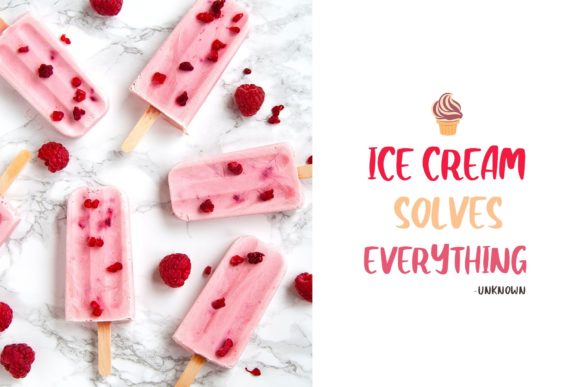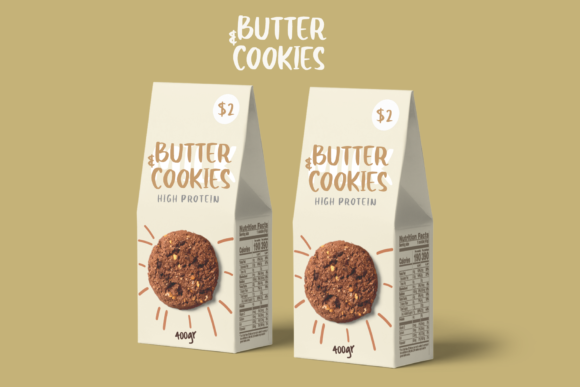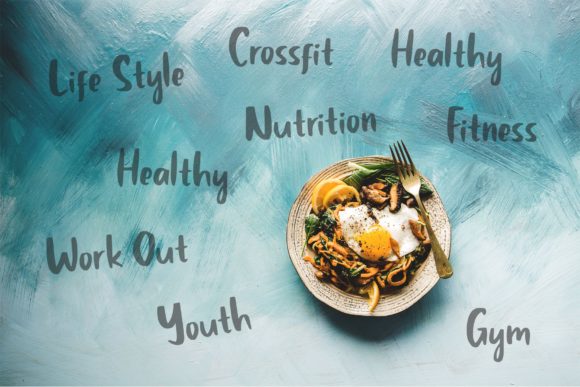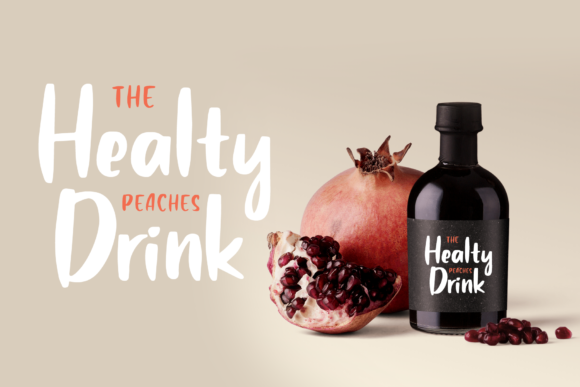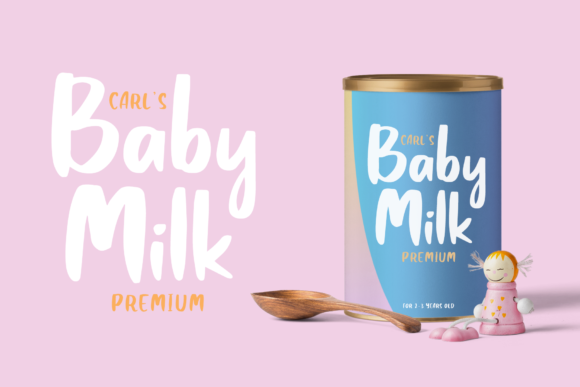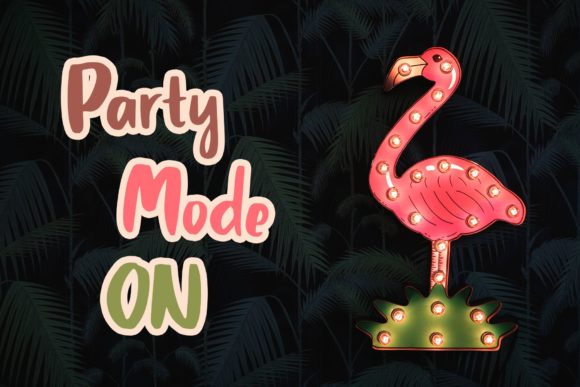
Introducing Claudey Font: Elevate Your Designs with a Touch of Humanity
In the world of typography, fonts play a crucial role in conveying the tone and personality of a design. For crafters and designers looking to add a personal touch to their work, the Claudey font is an excellent choice. This striking handwritten font has the power to transform ordinary type into an exciting and beautiful piece of art. With its irregular, hand-lettered look and abundance of loving details, Claudey is the perfect addition to any design project.
The Charm of Handwritten Typography
The Claudey font boasts a unique, handwritten aesthetic that adds a real human touch to any design. In an era where digital communication dominates, handwritten typography offers a refreshing respite from the uniformity of digital fonts. The irregularities and quirks inherent in handwritten fonts like Claudey create a sense of authenticity and personality, making your designs stand out in a crowded digital landscape.
Key Features of Claudey Font
- Handwritten Aesthetic: Claudey’s hand-lettered look adds a personal and emotive touch to your designs.
- Irregularities and Details: The font is filled with loving details that give it a unique character.
- Versatility: Combine all font styles to create a cohesive and visually appealing design.
- Customization Options: Add ornamental swashes or banners to give your text an extra layer of elegance.
Creative Applications of Claudey Font
The versatility of Claudey font makes it suitable for a wide range of design applications. Here are a few ideas to get you started:
- Branding and Logos: Use Claudey to create a unique and memorable brand identity.
- Invitations and Stationery: Add a touch of elegance to your wedding invitations, greeting cards, and other stationery.
- Packaging Design: Make your product packaging stand out with Claudey’s distinctive handwritten style.
- Digital and Print Media: Use Claudey in your digital and print media, such as brochures, flyers, and social media graphics.
Tips for Using Claudey Font Effectively
To get the most out of Claudey font, consider the following tips:
- Mix and Match: Experiment with combining different font styles to create a cohesive look.
- Pay Attention to Spacing: Make sure to adjust the spacing between letters and words to maintain readability.
- Use Swashes and Banners: Add ornamental swashes and banners to give your text a decorative touch.
- Keep it Simple: Don’t overdo it – sometimes, less is more. Let Claudey’s beauty shine through by keeping your design simple and elegant.
The Claudey font is a powerful tool for designers and crafters looking to add a personal touch to their work. With its unique handwritten aesthetic, versatility, and customization options, Claudey is the perfect choice for a wide range of design applications. Whether you’re creating a brand identity, designing packaging, or crafting digital media, Claudey font is sure to elevate your designs and leave a lasting impression.
Get Creative with Claudey Font